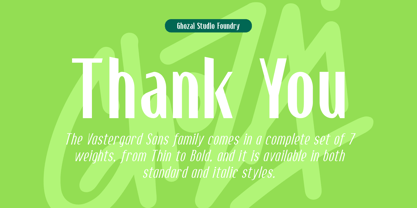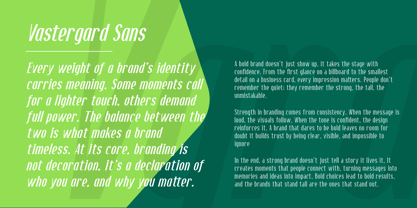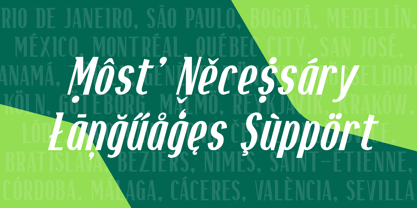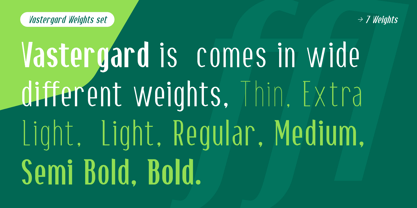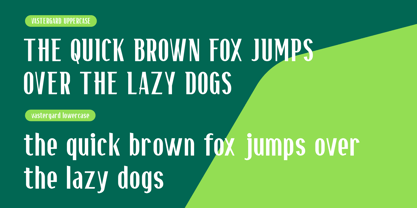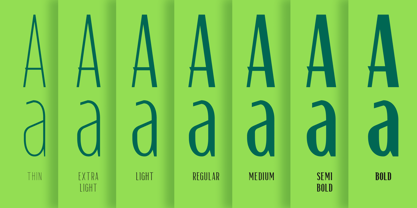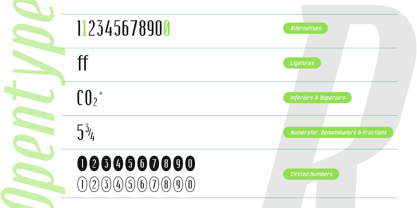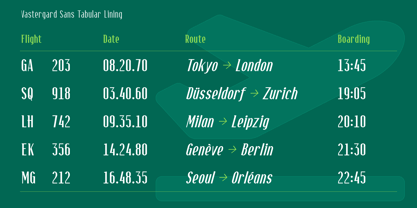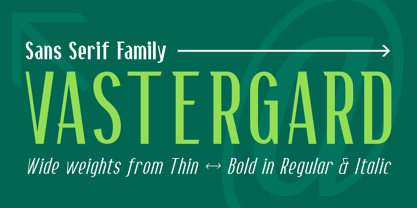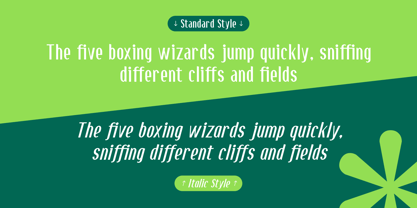
Vastergard
Die Schriftfamilie Vastergard wurde von Manzur Ghozaali entworfen und von Ghozai Studio veröffentlicht. Vastergard enthält 14 Stile und Familienpaketoptionen. Mehr über diese Familie
Vastergard is a sans-serif typeface inspired by tall and contrast. Balancing delicate hairlines with confident strokes. Designed to perform across a wide range of applications, editorial layouts, authority in branding, and clarity in professional communication. Vastergard features 7 weights, ranging from Thin to Bold, with each weight accompanied by a matching Italic counterpart. This results in a 14-style family, offering the flexibility to create expressive typography and cohesive visual identities.
Vastergard includes a range of OpenType features, such as Stylistic Alternates for subtle variations in letterforms, Ligatures for smoother text flow, and Tabular Lining Figures for neatly aligned numerical data and other Opentype features.
Perfect for : Editorial Design • Magazine Layouts • Luxury Branding • Corporate Identity • Fashion Campaigns • Beauty Packaging • Book Design • Publishing • Advertising • Logos • Websites • User Interfaces • Presentations • Invitations • Product Packaging • Annual Reports • Stationery • Marketing Materials • Headline Typography • Professional Documents